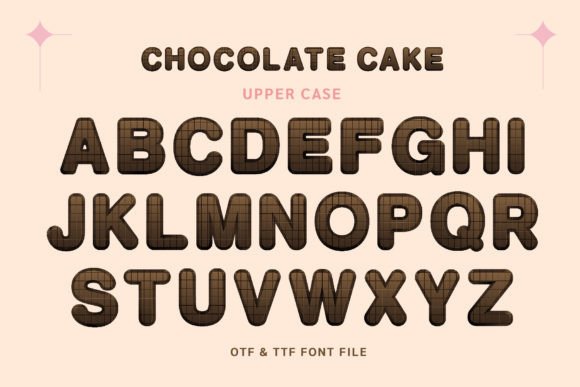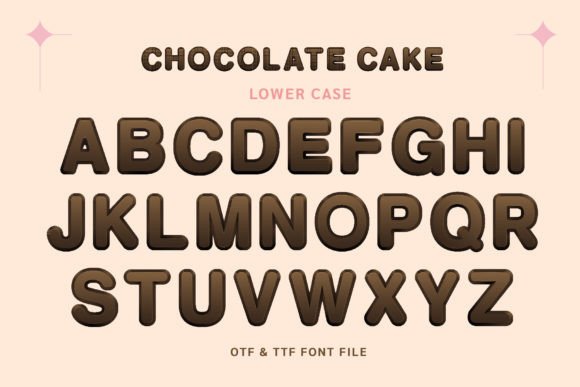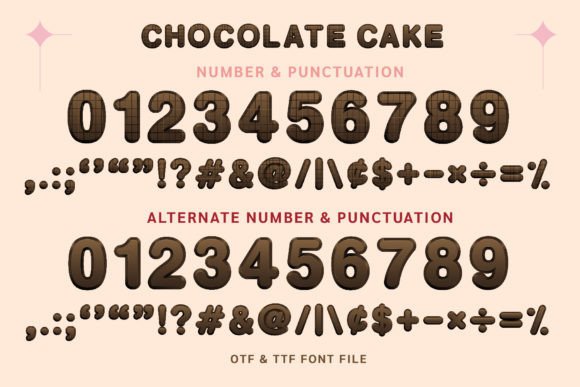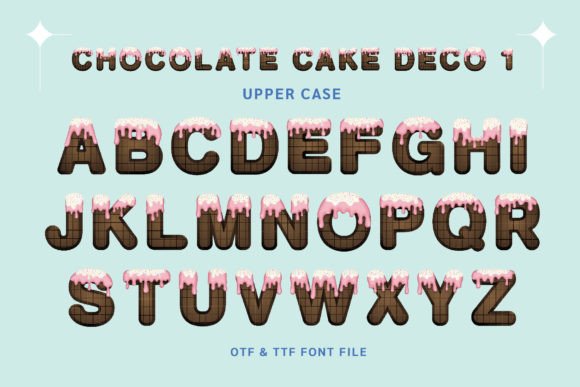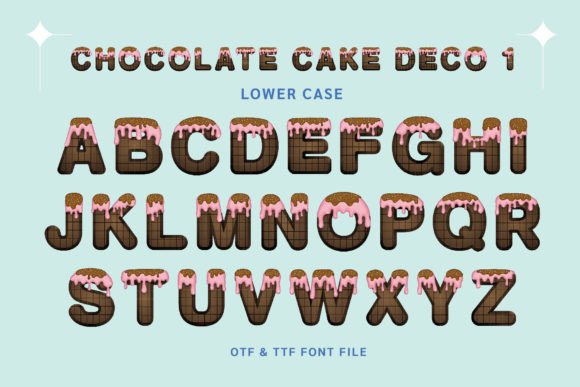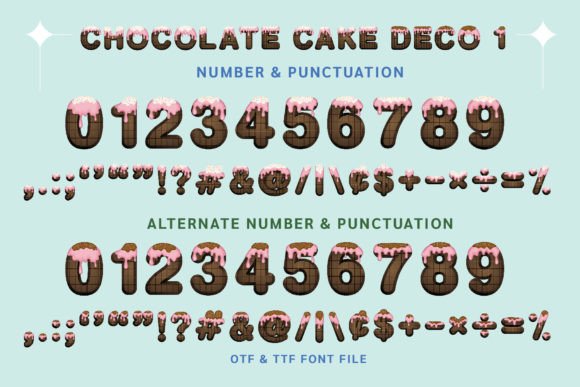
The Sweetest Font You’ll Fall in Love With: Chocolate Cake
I’ll never forget the time I was working on a Valentine’s Day project for a client, and I just couldn’t find the perfect font to convey the warmth and affection they wanted. I scrolled through page after page of font options, but nothing seemed quite right. That was until I stumbled upon Chocolate Cake, a massive fun color bitmap font that instantly captured the playful, loving vibe I was going for.
With Chocolate Cake, you can create gorgeous birthday cards, Valentine-themed social media posts, t-shirts, and cute greeting cards that are sure to delight. In this article, I’ll share my honest review of this charming font, provide a practical guide on how to use it, and explore some similar fonts you might enjoy.
My Honest Review of Chocolate Cake
- ✅ Authentic feel: Chocolate Cake has a delightful, hand-crafted quality that makes it perfect for creating heartfelt, personal messages.
- ✅ Versatile: From social media posts to t-shirts, Chocolate Cake can be used on a wide range of projects.
- ✅ Fun: Let’s face it – this font is just plain fun! It’s sure to bring a smile to your face and your audience’s faces.
The Story Behind Chocolate Cake
Chocolate Cake was designed with one goal in mind: to create a font that’s as warm and inviting as a slice of homemade chocolate cake. The designer, inspired by the joy of baking and sharing treats with loved ones, crafted this font to bring a touch of whimsy and fun to everyday projects.
| Q: What type of font is Chocolate Cake? | A: Chocolate Cake is an OpenType full-color (SVG) font, which means it’s a bitmap font that displays in full color. |